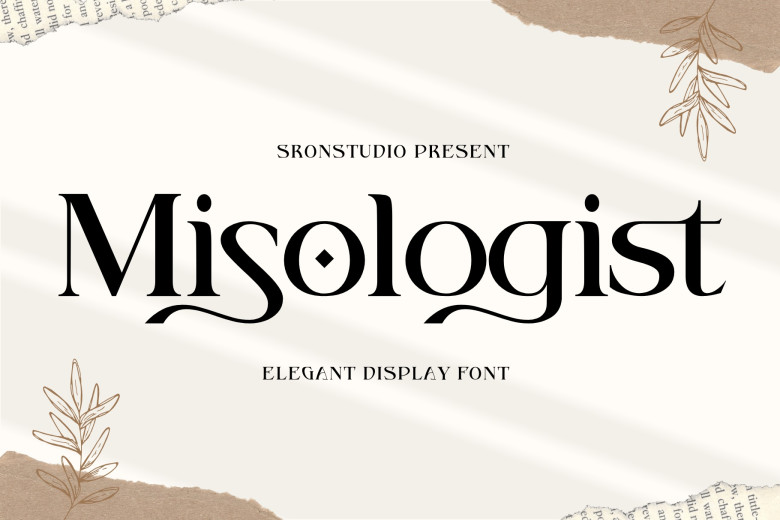
Misologist Font
Misologist is an elegant yet modern serif font perfect for branding, invitations and stationery applications as well as social media posts and advertisements. This font was skillfully crafted to enhance creative projects to an entirely new level.
Misologist Serif Font